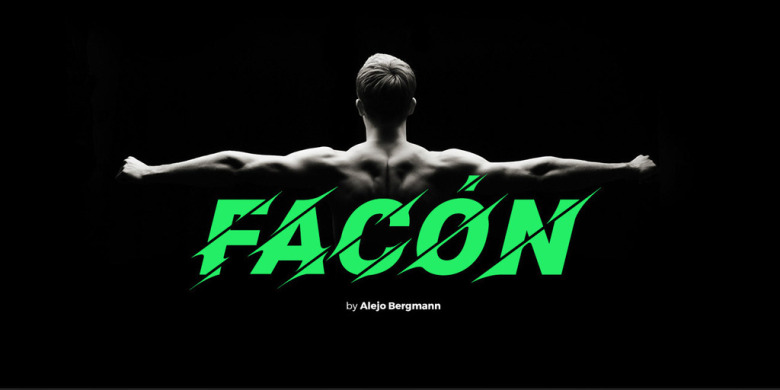
Facón Typeface
Facón Font
Introducing Facón Font. It is designed and shared by Alejo Bergmann. Facón is a display sport font with diagonal cuts. It contains all caps letters, numerals and symbols. This font perfectly suites for variety display purposes, including logotypes, badges and labels, headlines and banners, prints and much more.
Facón Typeface